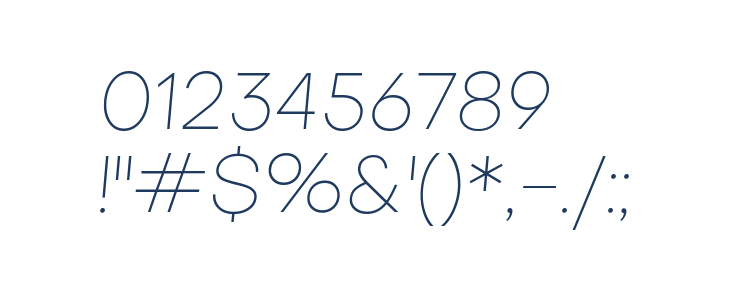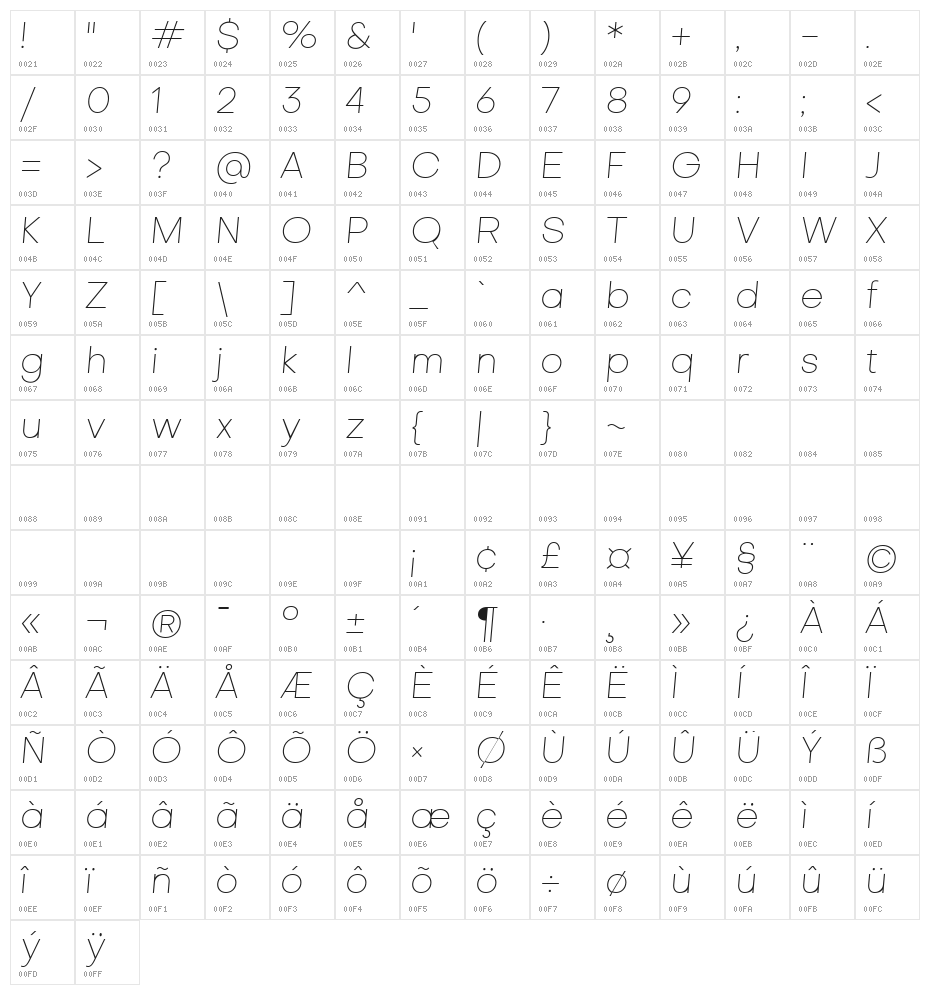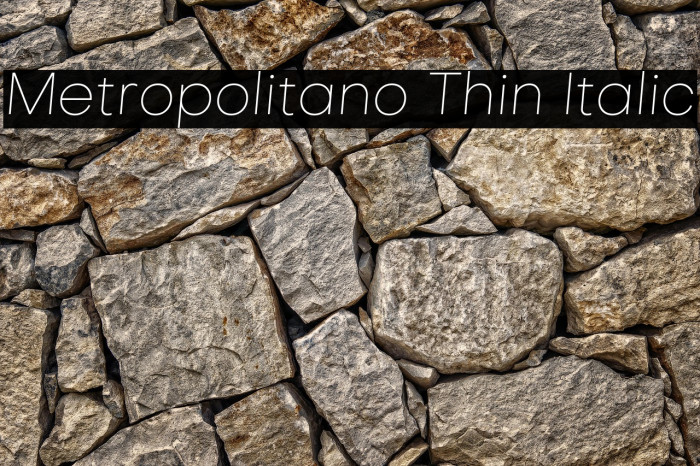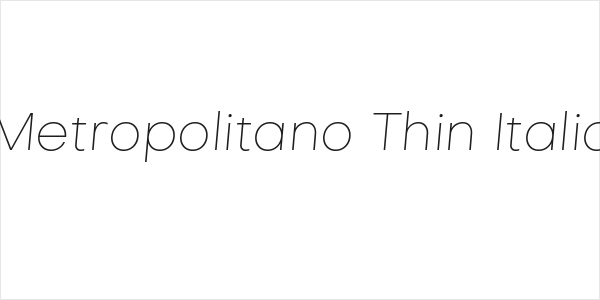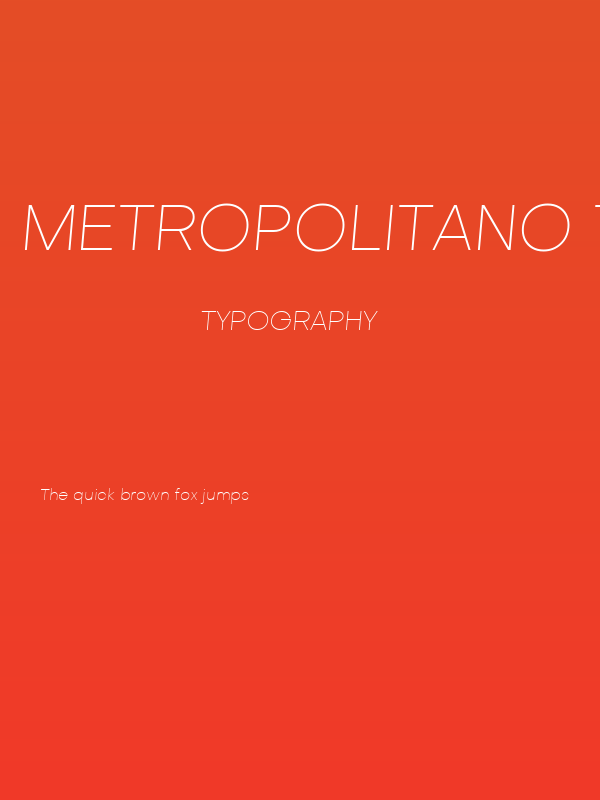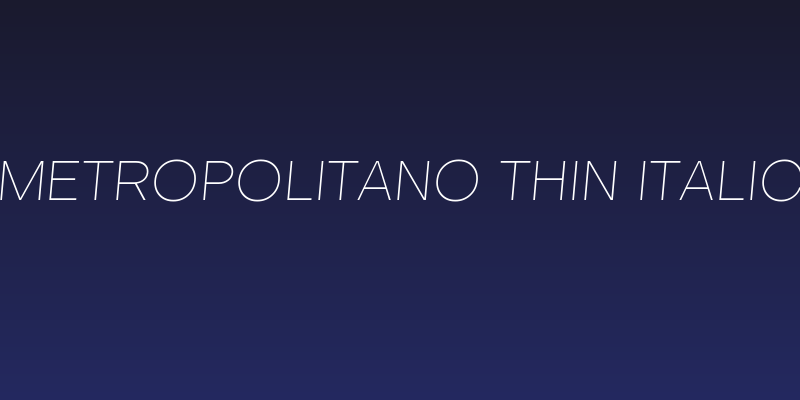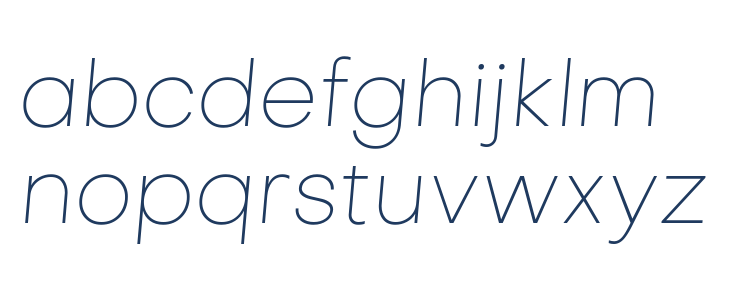
Metropolitano Thin Italic Font
Metropolitano Thin Italic Description
This font features a sleek and modern design with a thin, elegant structure. The characters are slightly slanted, giving it an italicized appearance that adds a touch of sophistication. The strokes are consistent and clean, with a uniform thickness that maintains readability while providing a stylish look. The font's minimalistic approach makes it versatile for various design applications, offering a contemporary feel that is both professional and approachable. Its geometric shapes and smooth curves create a harmonious balance, making it suitable for both digital and print media.
| Proposed Projects | Ideal for branding, editorial design, websites, and modern print materials. |